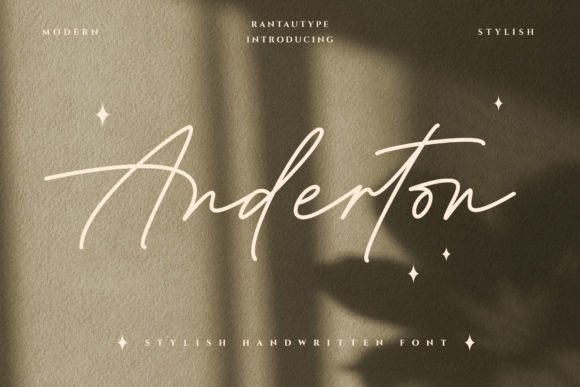
The Anderton Font: A Sweet and Elegant Addition to Your Design Arsenal
I’ll never forget the time I was working on a project for a client who wanted a elegant and sophisticated look. I had spent hours browsing through font libraries, but nothing seemed quite right. That was until I stumbled upon the Anderton font. Its delicate swashes and sweet, handwritten charm instantly won me over. In this article, I’ll share my experience with the Anderton font, its features, and how to make the most of it in your designs.
• ✨ Elegant and dainty handwritten look that’s perfect for a variety of design projects
• ✅ Delicate swashes that add a touch of sophistication
• ✅ Highly versatile and can be used for letterheads, titles, stationery, and more
• ✅ Easy to read and understand, even at smaller font sizes
• ⚠️ Some users may find the font a bit too delicate for certain design projects
• ⚠️ Limited availability of certain characters and glyphs
• ⚠️ May not be the best choice for body text or long-form content
The Story Behind Anderton Font
The Anderton font was designed by a talented typographer who wanted to create a font that would evoke a sense of elegance and sophistication. Inspired by traditional calligraphy, the Anderton font features delicate swashes and a sweet, handwritten look. Whether you’re a designer, crafter, or creative hobbyist, the Anderton font is sure to become a favorite in your design arsenal.
Q: Is the Anderton font suitable for body text?
A: While the Anderton font is beautiful, it’s not the best choice for body text or long-form content. Its delicate look is better suited for headings, titles, and short paragraphs.